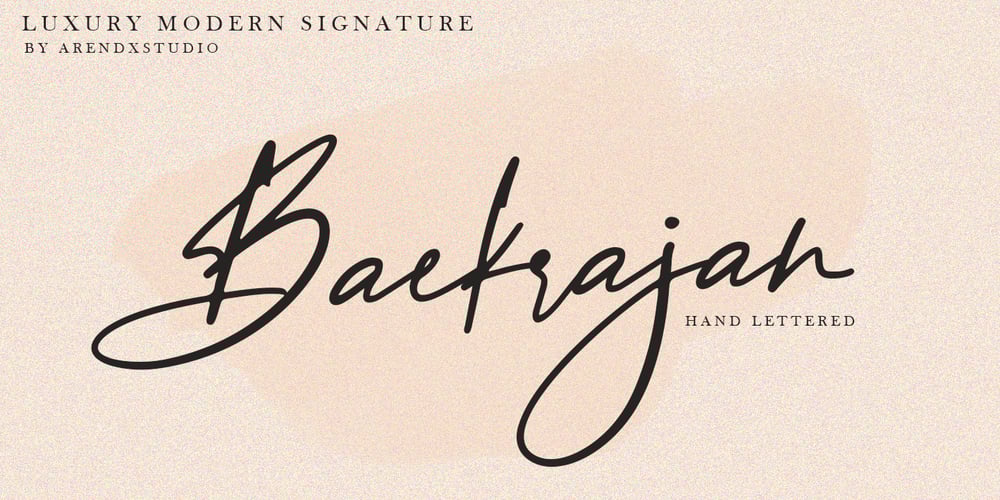
Baekrajan Font Family was designed by Asep Rendi and published by Arendxstudio. Baekrajan contains 1 styles and family package options. Baekrajan is a luxurious, casual and distinctive script that is perfect for your branding design, wedding invitations, business cards, and more. Baekrajan features Uppercase and Lowercase characters, figures and ligature standards that are very realistic. There it is! I really hope you enjoy it – comments & likes are always welcome and accepted. More importantly, don’t hesitate to send a message if you have a problem or question. Now just read this, go there and make it happen 🙂